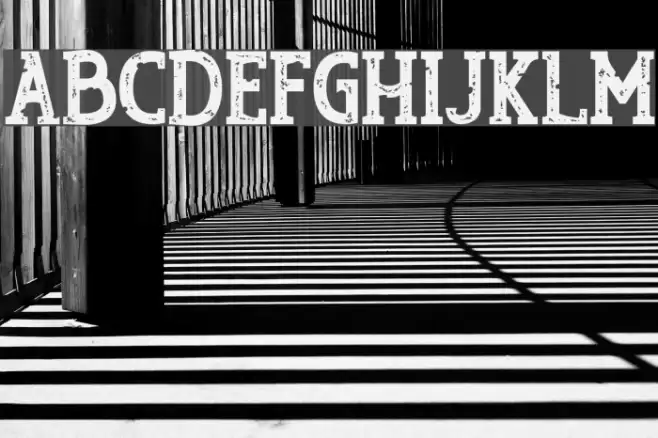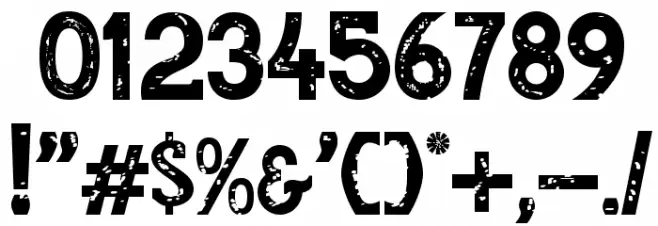
RumouraTexturesPERSONALUSE Font
RumouraTexturesPERSONALUSE Description
This font features a bold, textured design with a distressed appearance, giving it a rugged and vintage feel. The uppercase and lowercase letters are crafted with a consistent texture that mimics a worn or weathered look, making it ideal for projects that require a rustic or industrial aesthetic. The numerals and special characters maintain this textured style, ensuring a cohesive look across all text elements. The font's bold weight and high contrast between thick and thin strokes enhance its readability while adding a dramatic flair. Its unique style makes it suitable for eye-catching headlines and creative design projects.
A bold, textured font with a distressed, vintage appearance from Uncategorized fonts.
- Proposed Projects: Perfect for posters, branding, packaging, and any design requiring a vintage or industrial touch.
- Overall Style: Vintage